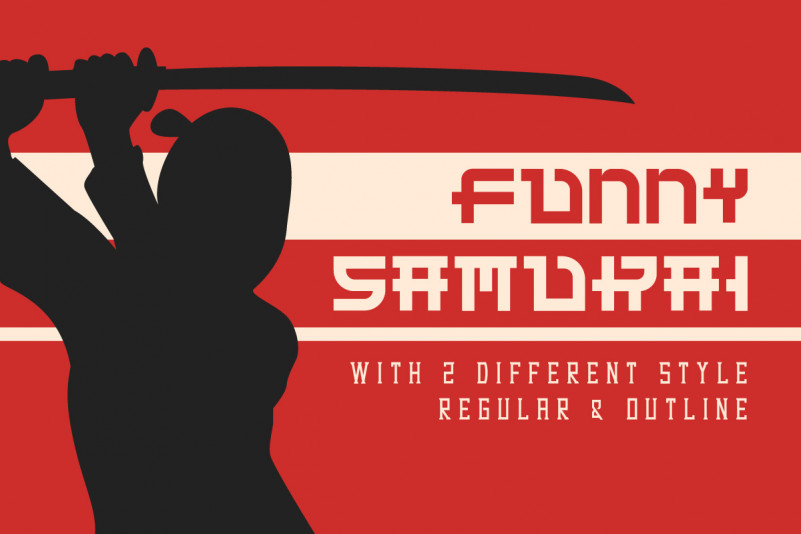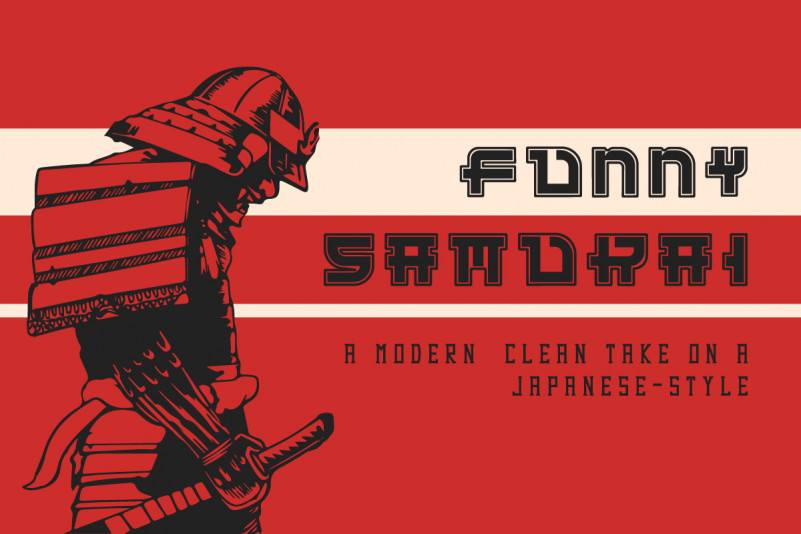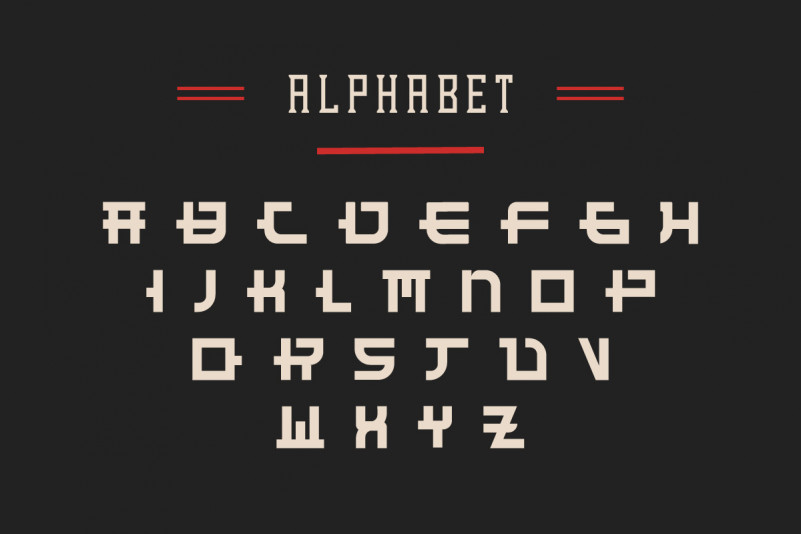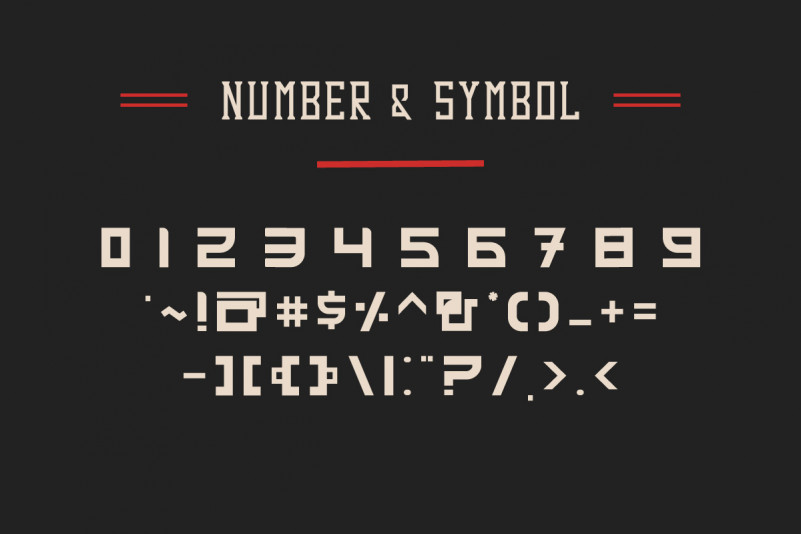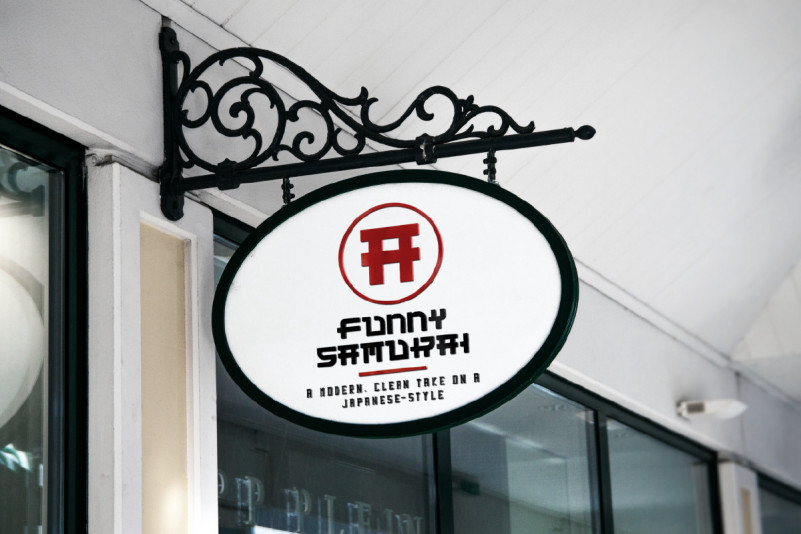
Funny Samurai Typeface – a japanese comic theme sans serif font. Hello Everyone!What’s up?! Introducing our newest font collection: FunnySamurai! It’s a sans serif font family with Japanese comic style theme. It has 2 different styles : regular and outline. It will be perfect for logo, branding, flyer, headlines, magazine etc. The industries that will suit this font will be casual, comic, cafe, restaurant, japanese law firm etc